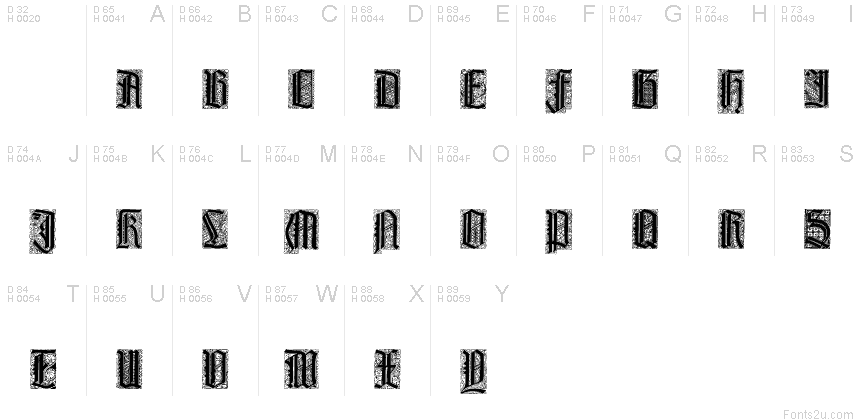
Liturgisch Zierbuchstaben by Dieter Steffmann of Typographer Mediengestaltung is a free Gothic initials font inspired by illuminated manuscripts. Broad dark strokes sit inside dense curling foliage and fine pen-like ornament. The central forms remain distinct within the decoration.
Its medieval character suits church events and historical publishing. Book covers and fantasy games can turn the lettering into an illustrated emblem. For heritage brands, the manuscript ornament can shape a recognizable seal or packaging mark.